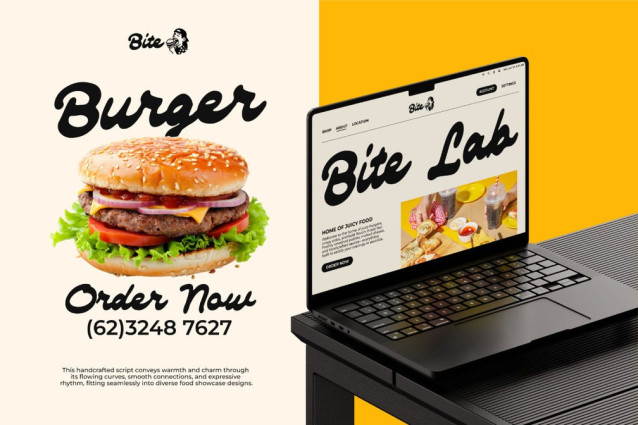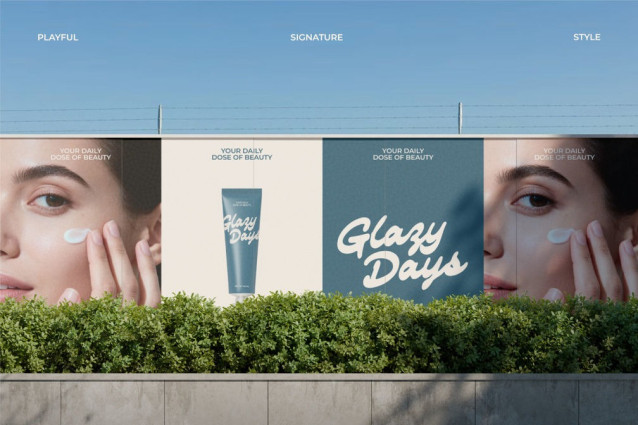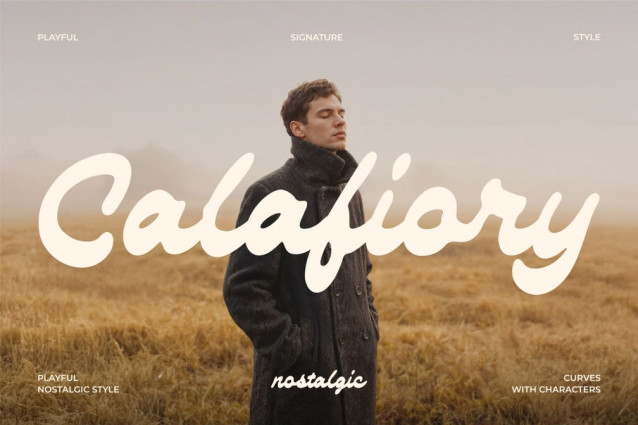
Calafiory Script Font
Calafiory Script Font is a captivating and expressive display font that masterfully blends the nostalgic charm of vintage aesthetics with a clean, modern twist. Characterized by its thick, fluid strokes and an organic cursive flow, this typeface exudes a playful yet sophisticated energy that instantly grabs attention. Whether you are designing eye-catching food packaging, a bold brand identity, or vibrant social media graphics, Calafiory’s soft curves and groovy rhythm provide a hand-crafted, approachable feel. It is a versatile choice for designers looking to inject a sense of warmth and “classic-meets-cool” personality into their creative projects, making it perfect for everything from high-impact headlines to stylish merchandise.